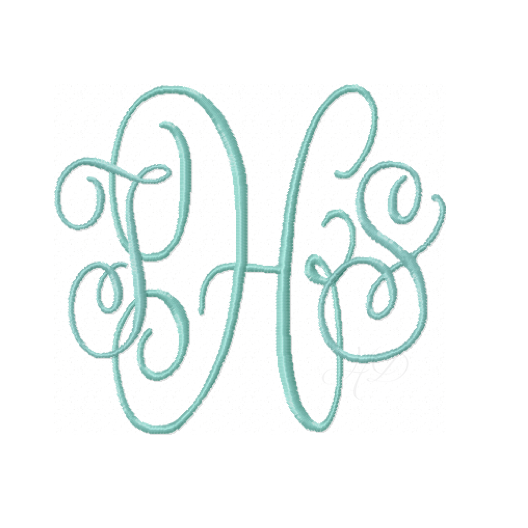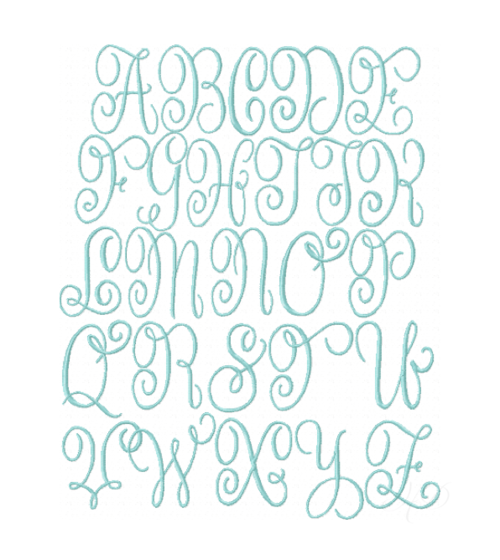
Rose Embroidery Font Monogram for easy crafting projects
Rose Embroidery Font Monogram - Customizable Designs
Enhance your crafting projects with the Rose Embroidery Font Monogram. This versatile package includes six sizes of beautifully crafted satin stitches, ranging from 1" to 3.5". Perfect for embroidery machine monogramming, this font is a must-have for DIY enthusiasts and crafters alike.